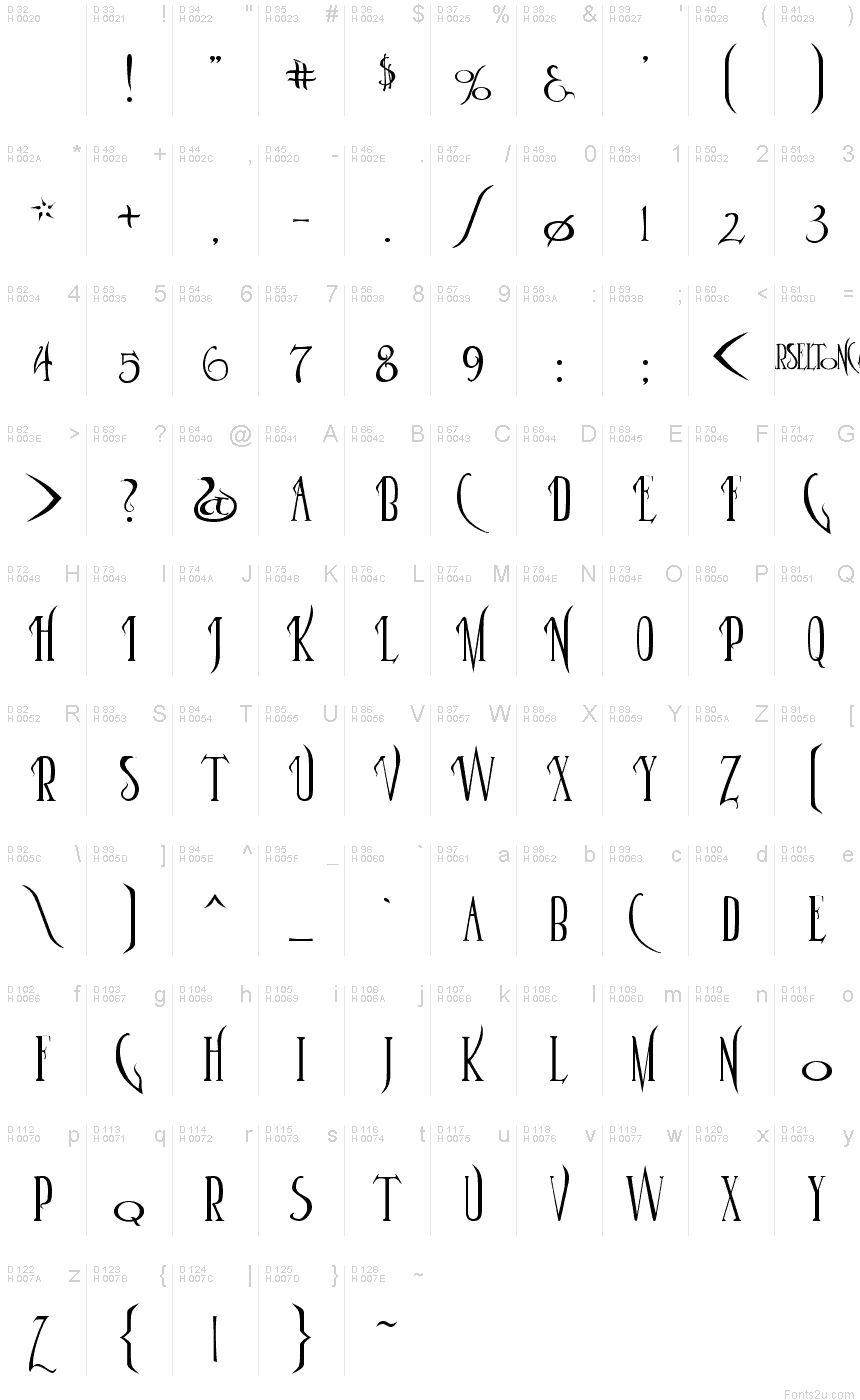
Parseltongue
Parseltongue font by Carpesaponem Fonts is a free gothic decorative typeface that slithers across the page with tall, wiry letters and sly, serpentine curves. Each stroke feels slightly venomous-spiky hooks, tapering ends, and narrow silhouettes give it a whispered, arcane energy that’s more eerie than loud. The result is a letterform style that looks like it was scratched into old stone or inked in the margins of a cursed grimoire.
Using Parseltongue, you can summon atmosphere instantly for fantasy book covers, occult zines, witchy branding, horror posters, Halloween invitations, and dark game titles. This free font thrives in larger sizes where its twisted details can breathe, while body copy can sit in a calm, neutral serif or sans for contrast.